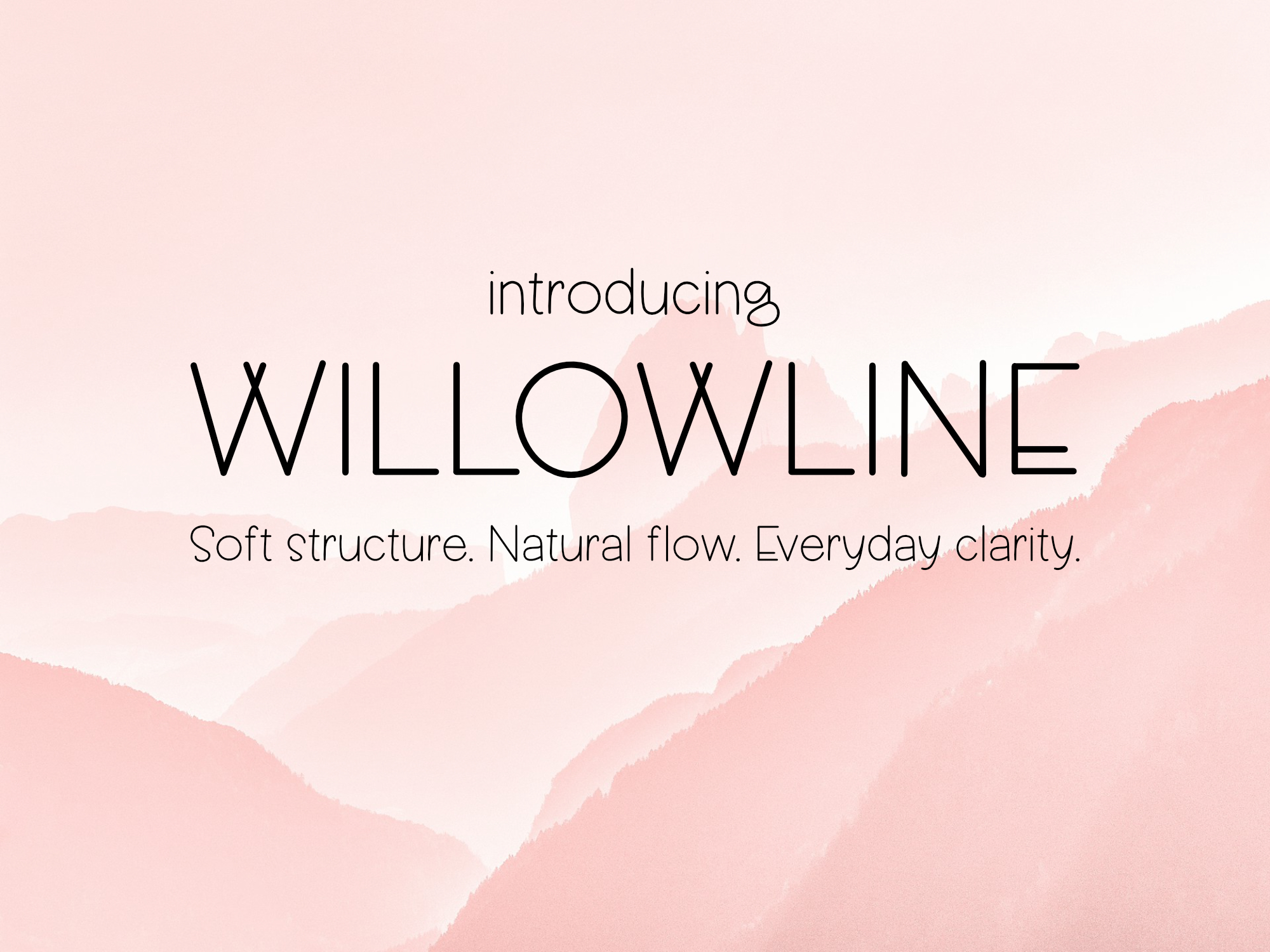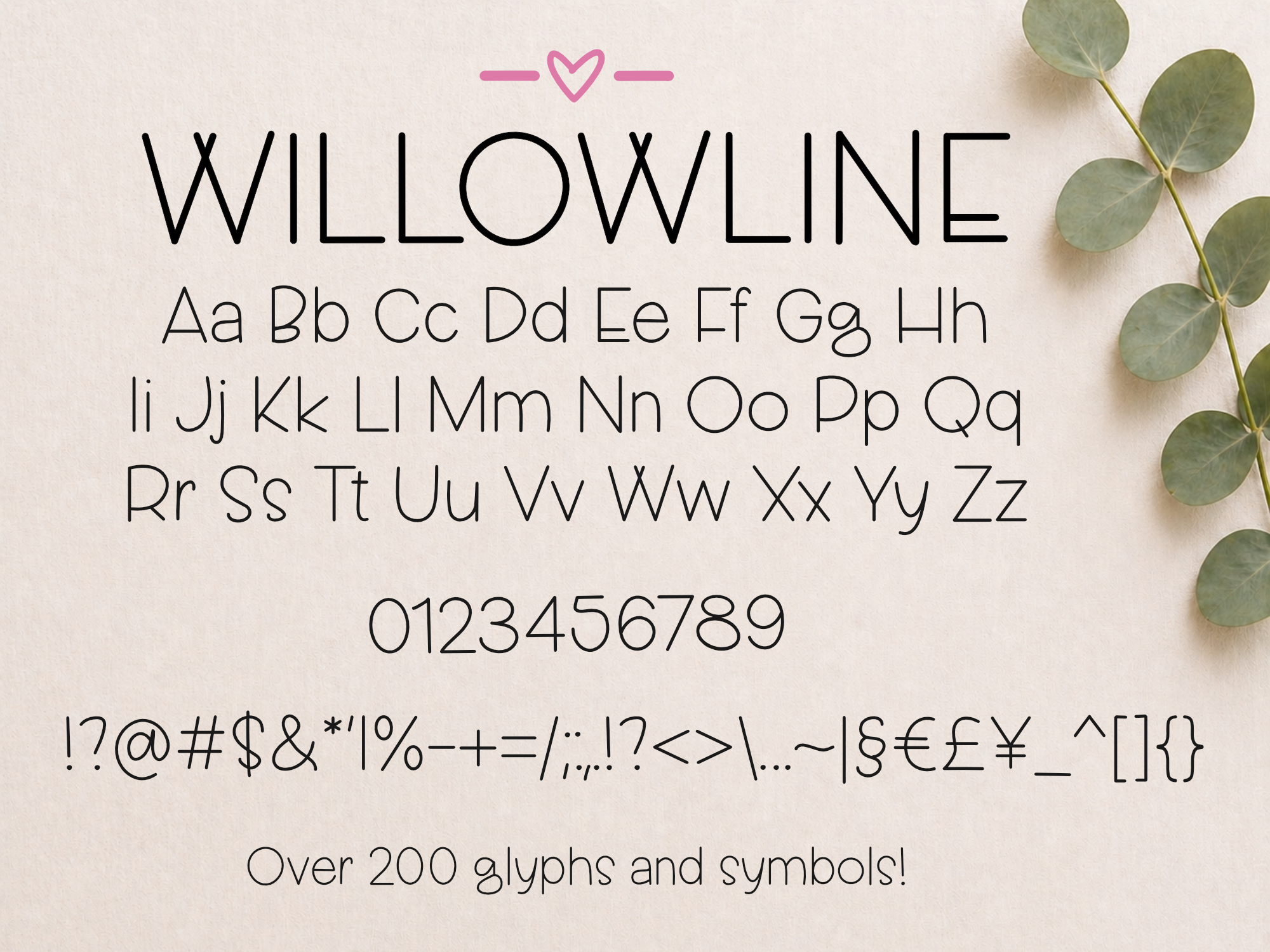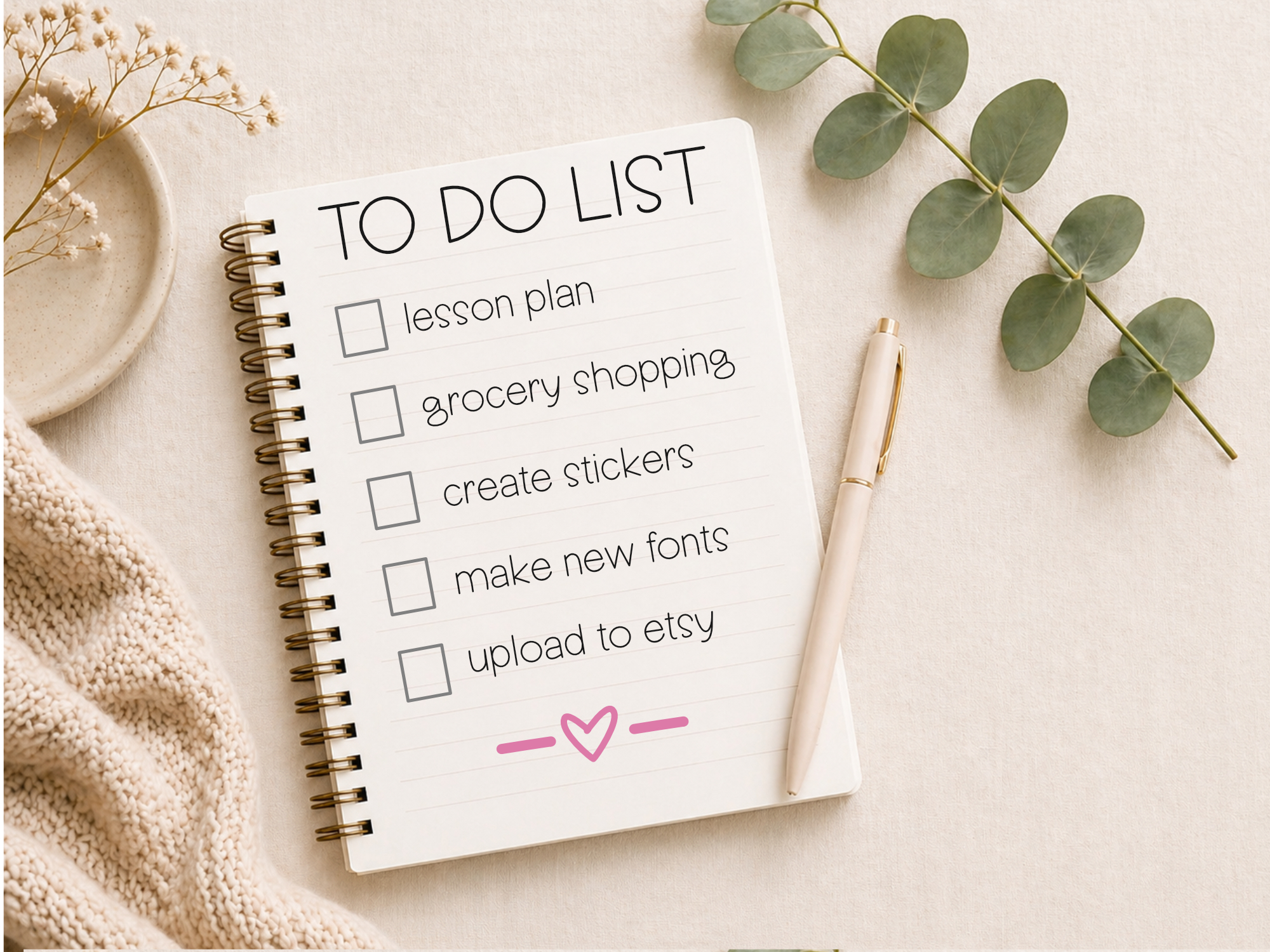
Willowline Font
Willowline Print is a clean handwritten font designed with soft structure and consistent spacing. It keeps a natural feel while staying highly readable, making it a dependable choice for both print and digital use.
What sets this one apart is its balance. The strokes are smooth and even, but small details, especially the distinct w, give it just enough personality to feel intentional without being distracting.
This isn’t a decorative script. It’s built for real use. Clear, simple, and easy to work with across a wide range of projects.
What makes Willowline stand out:
• Smooth, rounded monoline strokes
• Consistent spacing for clean layouts
• Easy readability at small sizes
• Subtle handwritten character without messiness
• Distinctive w that adds quiet personality
Perfect for:
• Planners and inserts
• Teacher resources and worksheets
• Labels and organization
• Social media graphics
• Branding and simple logos
• Stickers and printables